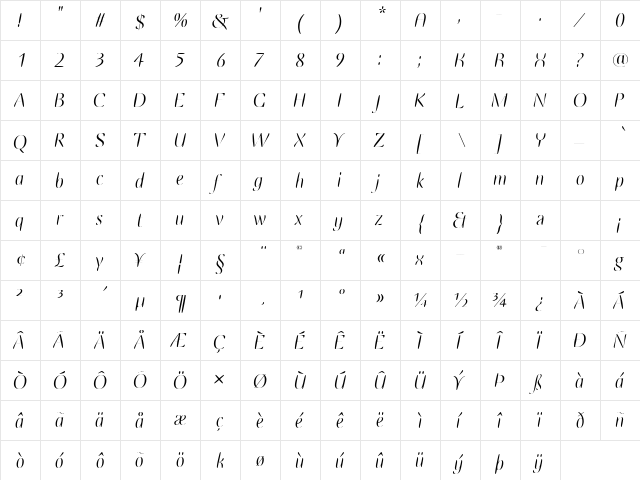
EllipseITC LightItalic
Design Context for EllipseITC Typeface
EllipseITC offers clean, dependable letterforms without strong stylistic allegiance, making it a practical choice for designers who need flexibility. The slanted form adds forward momentum and visual energy. Its slender proportions lend an understated elegance to any composition.
Pro Tip: Try EllipseITC for annotation and caption copy alongside an upright companion — the contrast in angle creates a dynamic but ordered typographic system.